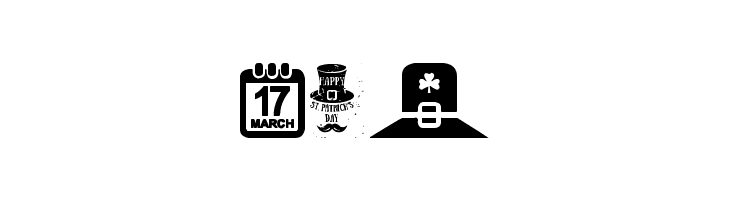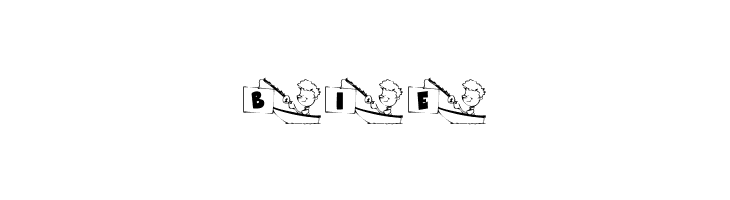
An ornate, gothic-style font with elaborate flourishes and embellishments.
An elegant, decorative font with floral embellishments and script-like lowercase letters.
A bold, playful font with integrated fish motifs for a whimsical touch.
A decorative Old English style font with intricate and ornate letterforms.
An ornate Old English style font with heart embellishments and a distressed texture.
A classic serif font with a historical and vintage feel.
A classic, elegant script font with flowing, cursive letters and intricate flourishes.
Illustrative artwork of geishas, not a font.
A decorative display font using fish illustrations for each character.
A display font composed of detailed fish illustrations for each character.
A bold, decorative font with elegant flourishes.
A classic serif font with a historical and elegant style.
A whimsical, illustrative font with fish-shaped characters.
A decorative blackletter font with intricate flourishes and high contrast strokes.
Cartoonish, illustrative font themed around Hispanic and Spanish culture.
A whimsical, decorative font inspired by birds and fish, featuring intricate and playful designs.
A playful, prehistoric-themed illustrative font with cartoonish characters.
Abstract, fish-themed decorative font with geometric symbols.
A decorative font with characters designed as unique fish shapes within diamond frames.
A classic blackletter font with ornate, angular letterforms and decorative flourishes.
An ornate, flourished font with high contrast and elegant calligraphic style.
A decorative and artistic font with intricate patterns and unique embellishments.
A quirky, illustrative display font with stick-figure characters.
A whimsical and bold font featuring cartoonish skull illustrations.
A decorative font of abstract, cartoonish symbols with bold contrast.
A decorative and gothic font with intricate flourishes and high contrast strokes.
Irish-themed decorative dingbat font with playful illustrations.